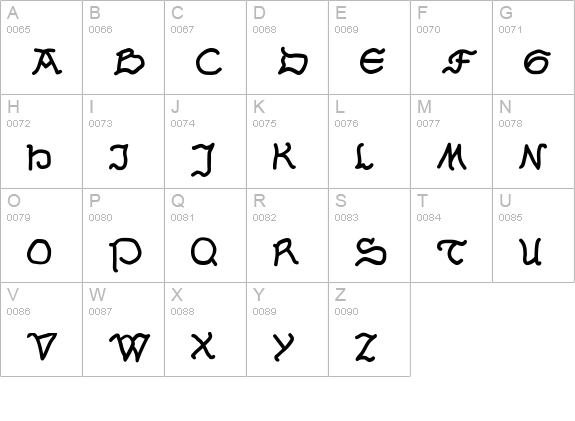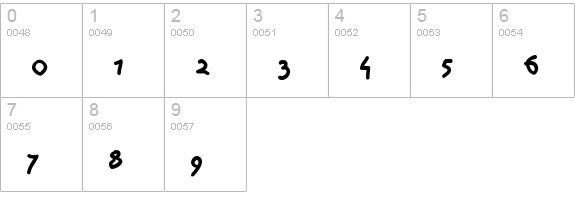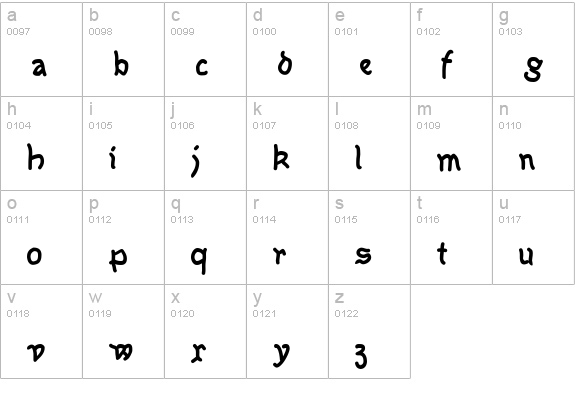
Serpentina font is a mesmerizing display typeface that exudes elegance and sophistication. Its unique and curvaceous letterforms effortlessly capture the attention of viewers, making it a perfect choice for headlines, logos, and branding projects. With its graceful strokes and intricate details, Serpentina font adds a touch of luxury and refinement to any design. Each letter is meticulously crafted, creating a harmonious balance between boldness and delicacy. Its flowing and sinuous lines evoke a sense of movement and fluidity, giving your text a dynamic and captivating appearance. But what sets Serpentina font apart from the rest is that it is not only visually stunning, but also freely available to download at FontsMarket.com. This means that you can effortlessly add a touch of class to your designs without breaking the bank. Whether you're a professional designer or a hobbyist, Serpentina font offers you the opportunity to create visually striking and impactful designs without any restrictions. So why wait? Download Serpentina font today from FontsMarket.com and unleash your creativity with this exquisite and free typeface. Elevate your designs to new heights and leave a lasting impression on your audience with the timeless beauty of Serpentina font.